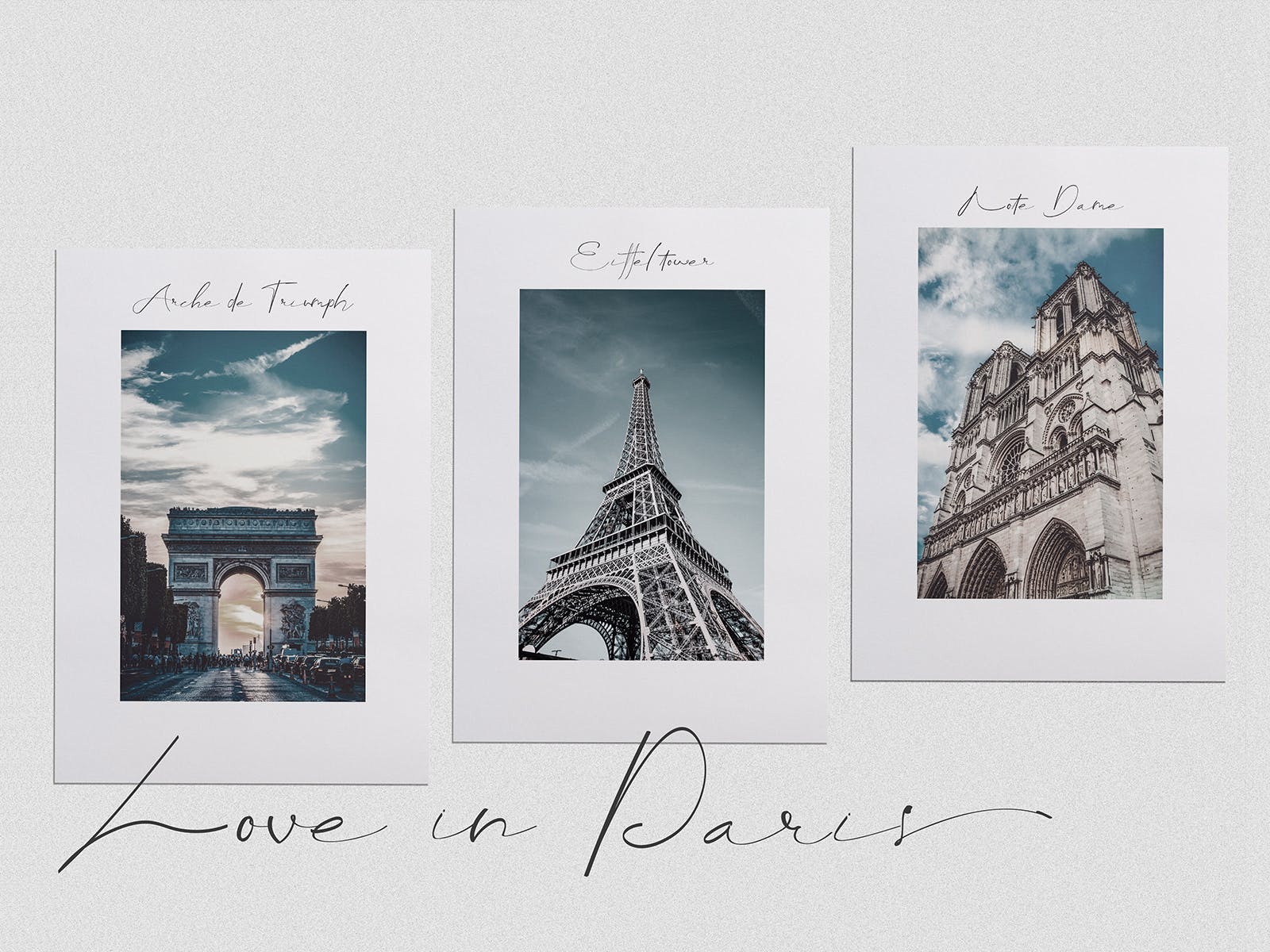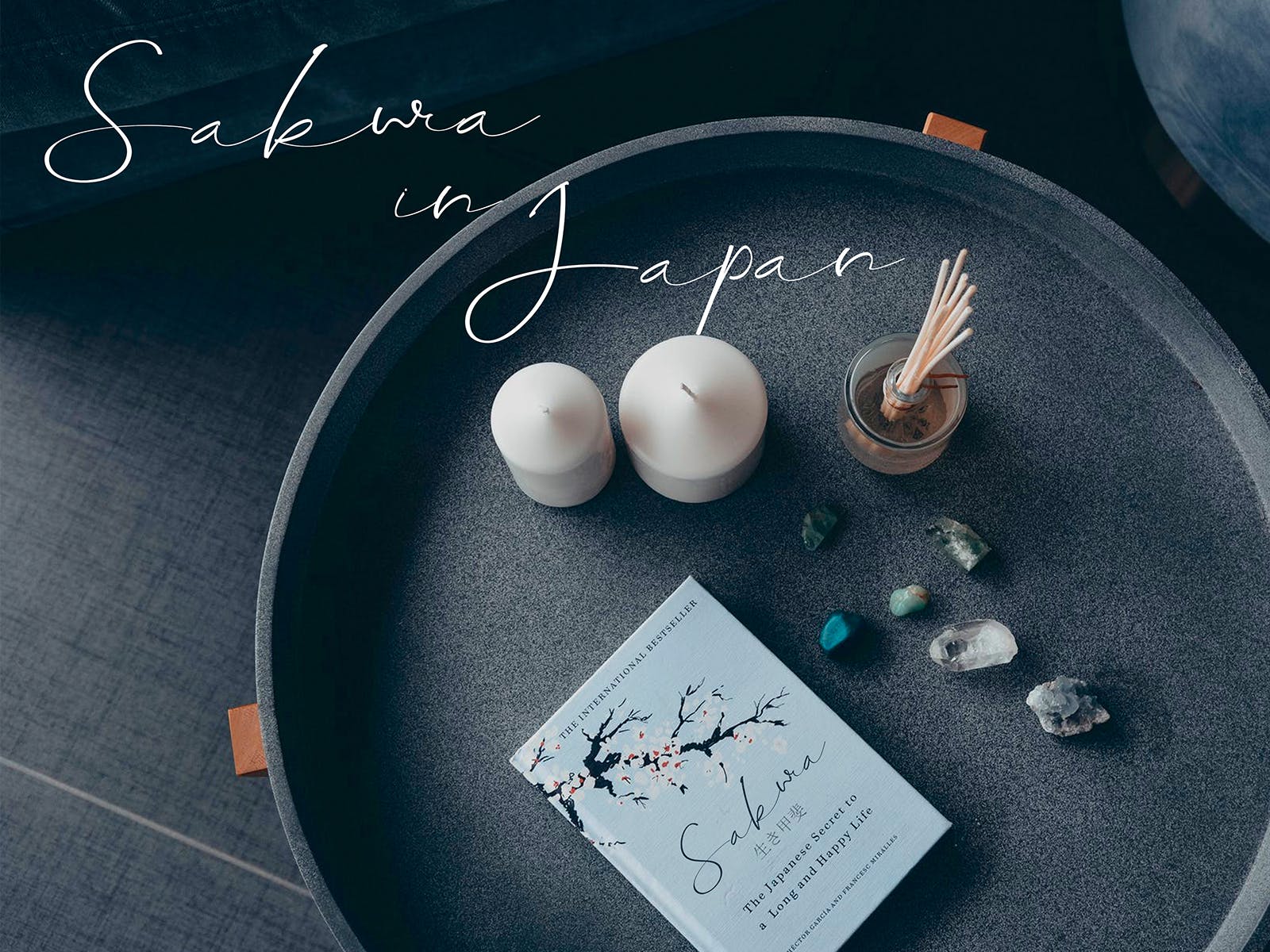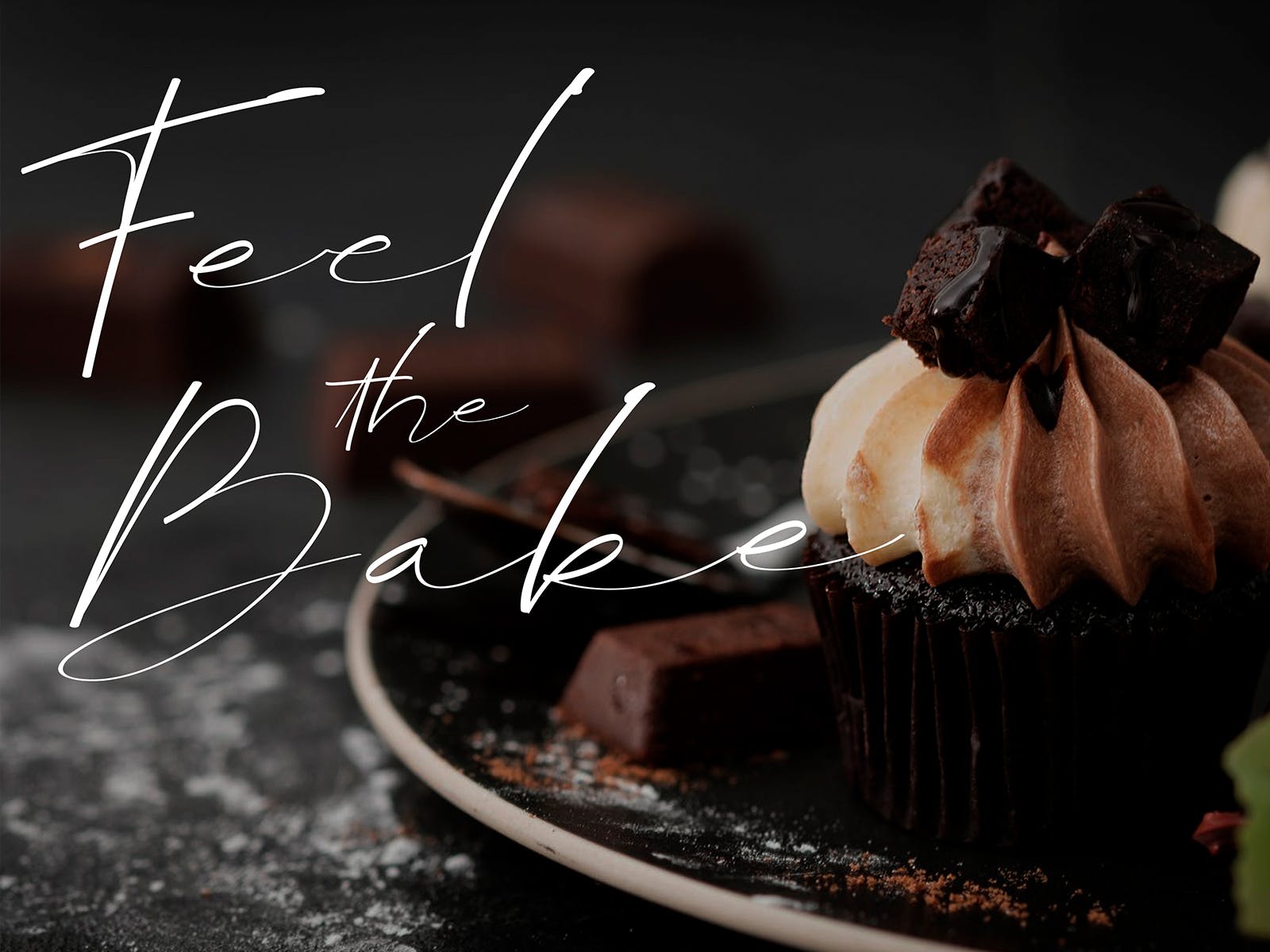
Free Estella Script Font
It is a modern signature font with the luxury hand-lettering font that looks professional and elegant for your works. This font is suitable for wedding invitation, gift cards, flyers, banners, packaging, and much more. It is available for the OTF format file that you can install and use it on your devices. However, this free font only useable on personal projects, but if you want to use it on commercial projects, you can make a purchase for Premium Version.